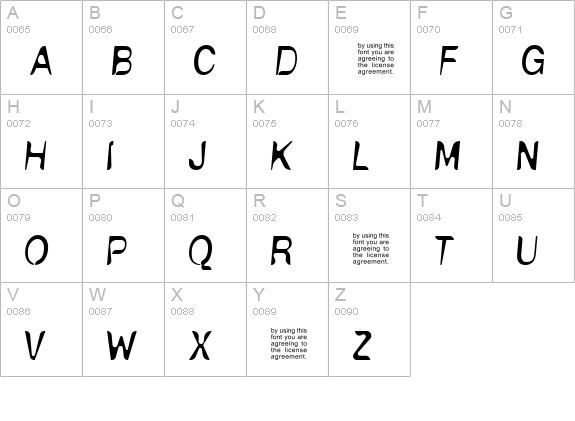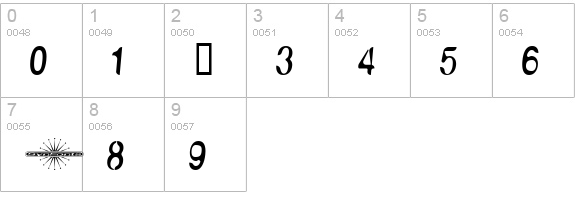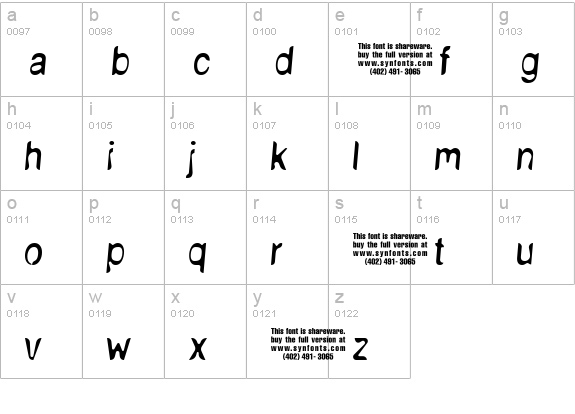
NudE UNPAID DEMO Font Details
NudE UNPAID DEMO font is a stunning display typeface that exudes elegance and sophistication. With its sleek and modern design, this font is perfect for adding a touch of class to any project. The unique letterforms and stylish curves of NudE UNPAID DEMO font make it a versatile choice for a wide range of design applications. And the best part? NudE UNPAID DEMO font is available for free! You can download this amazing font at FontsMarket.com and start using it in your projects right away. Whether you're designing a logo, creating a poster, or crafting a website, NudE UNPAID DEMO font will elevate your work to the next level. Don't miss out on this fantastic opportunity to add a touch of sophistication to your designs with NudE UNPAID DEMO font - download it for free today!